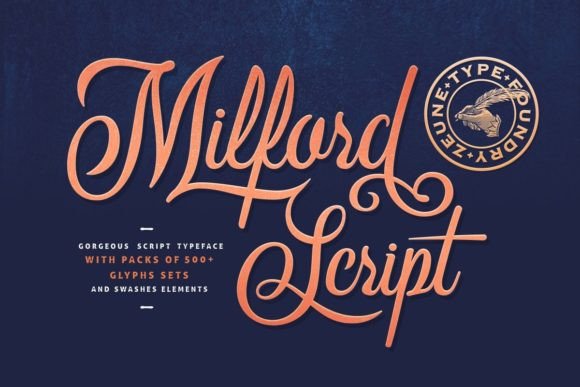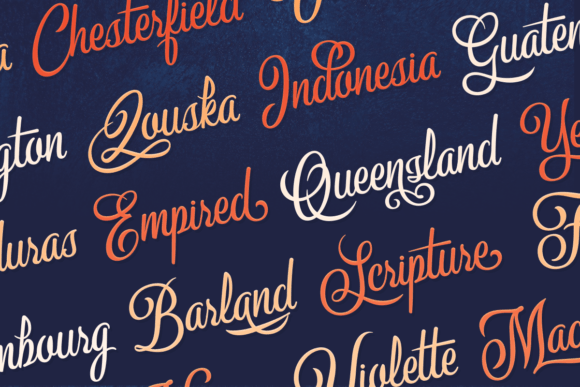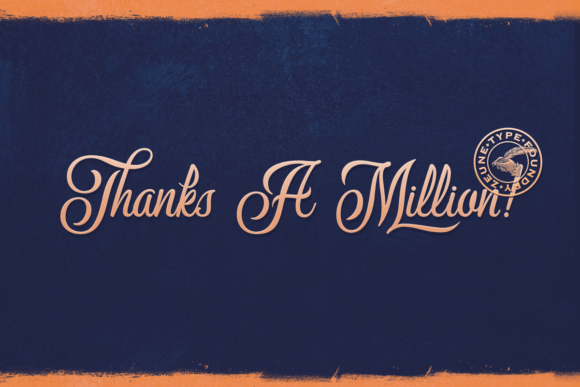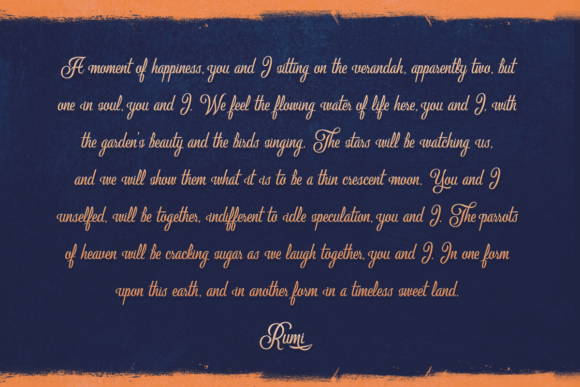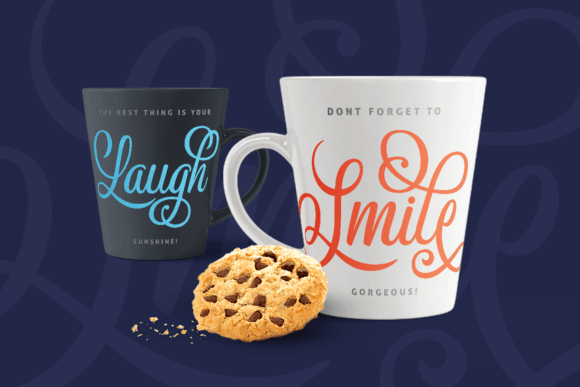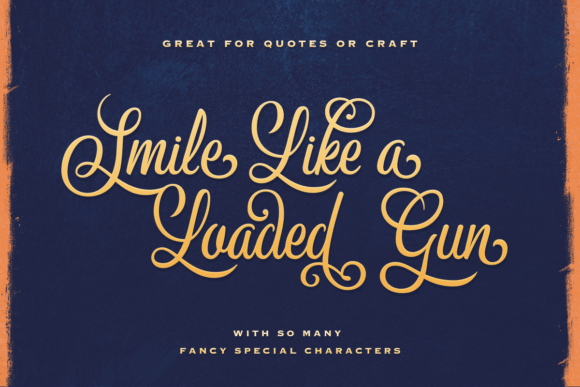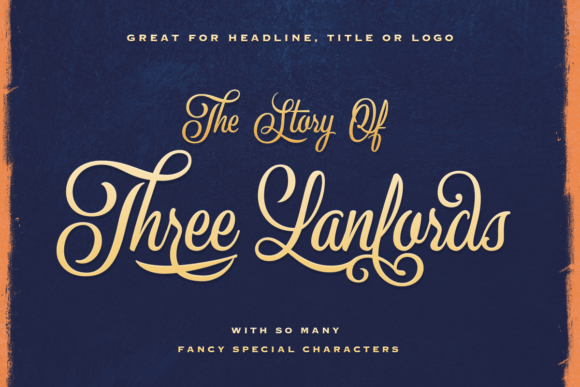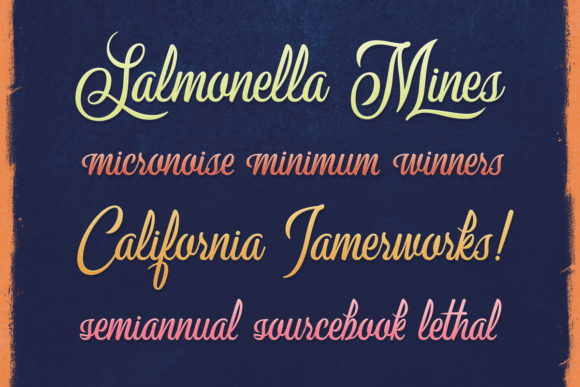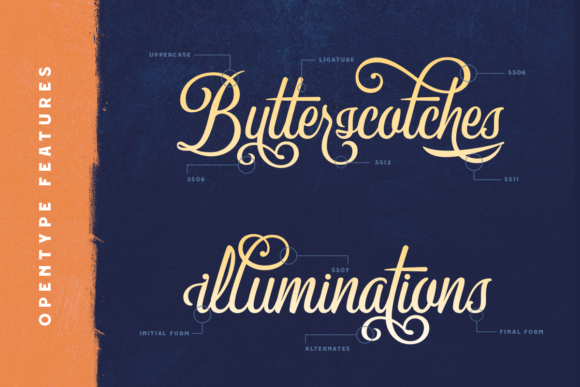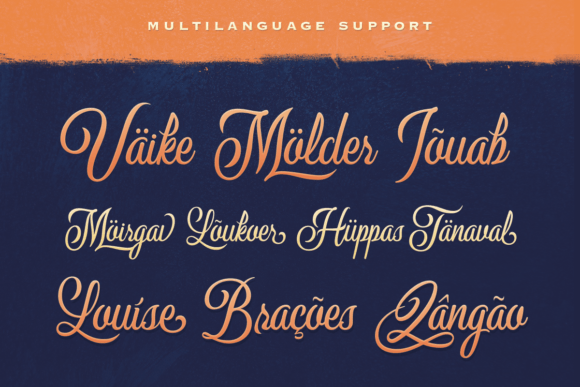
Milford Script Font
About Milford Script Font
“Milford Script” is a dazzling script font that exudes elegance and sophistication. This neatly crafted and highly detailed font is a valuable addition to your font library, as it has the potential to enhance a wide range of creative projects.
One of the standout features of “Milford Script” is its ability to convey a sense of beauty and refinement. The font’s characters possess a graceful quality that adds a touch of sophistication to your designs. “Milford Script” is a versatile choice for projects where you want to create a sense of elegance and artistic flair.
The flexibility of “Milford Script” ensures that it can be effectively used across different creative applications. Whether you’re designing elegant invitations, crafting high-end branding materials, creating luxurious typography for quotes and poetry, or exploring any other design project that demands a touch of beauty and sophistication, “Milford Script” adapts seamlessly to your creative vision.
“Milford Script” stands out as a font that brings a sense of authenticity and refinement to your designs. Its script style adds an artistic and captivating touch to your projects, making them feel both luxurious and engaging. “Milford Script” is a font that has the potential to enhance any creation and elevate it to a level of artistry.
Incorporating “Milford Script” into your design projects will likely result in outcomes that are not only dazzling but also full of artistic beauty. Its detailed and refined appearance makes it an excellent choice for creating designs that exude sophistication and charm. Embrace the beauty and refinement of “Milford Script” in your next project, and watch as it transforms your typography and overall design into works of art that capture attention and admiration.